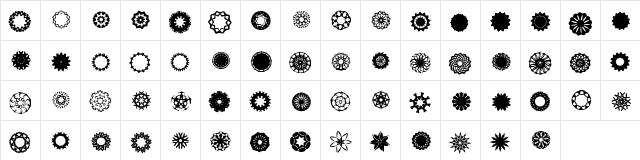
Complete ASorionTW Regular glyph index. Displaying only characters natively supported by ASorionTW Regular font.
ASorionTW is a composed and adaptable typeface that performs quietly and consistently across a wide range of design contexts.